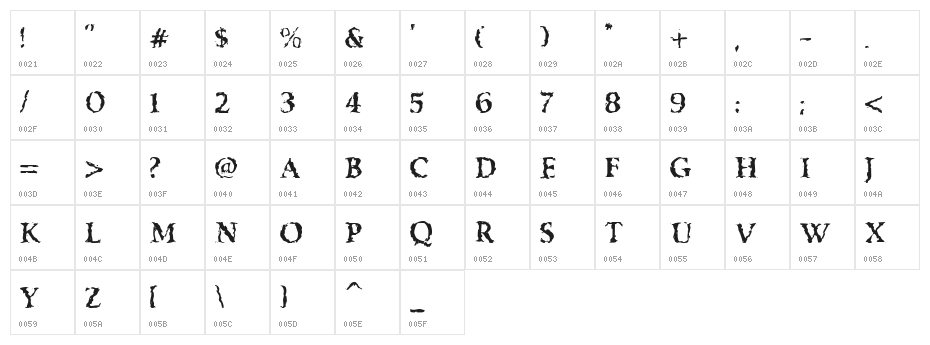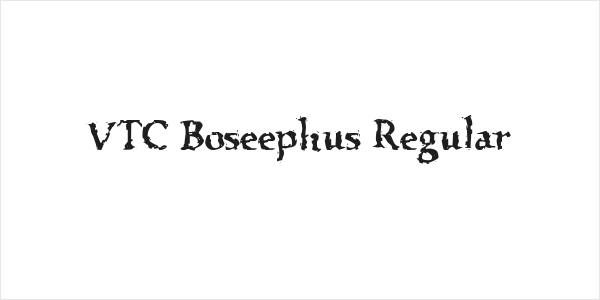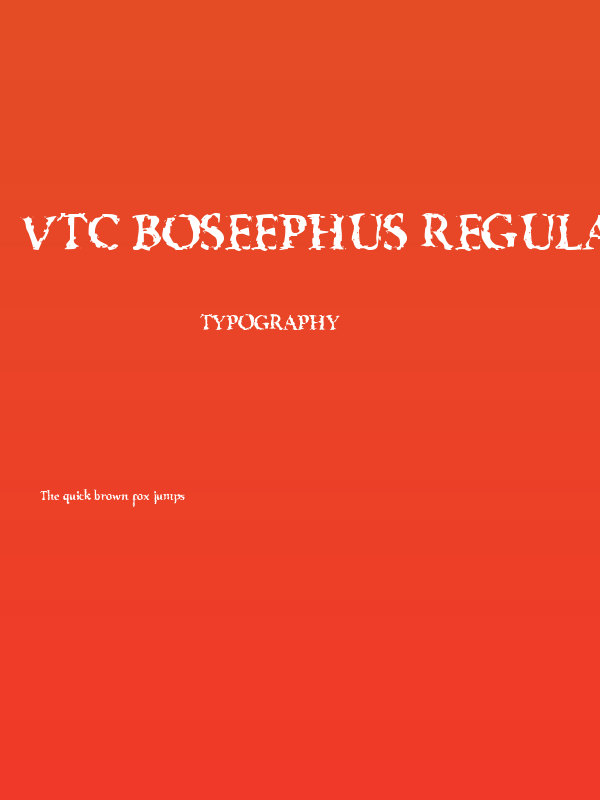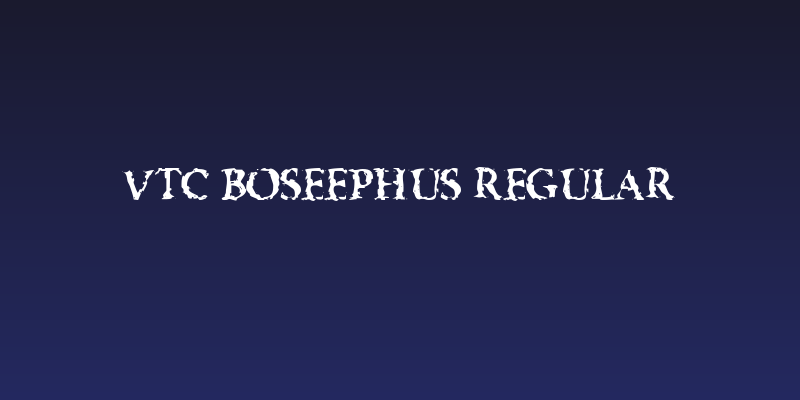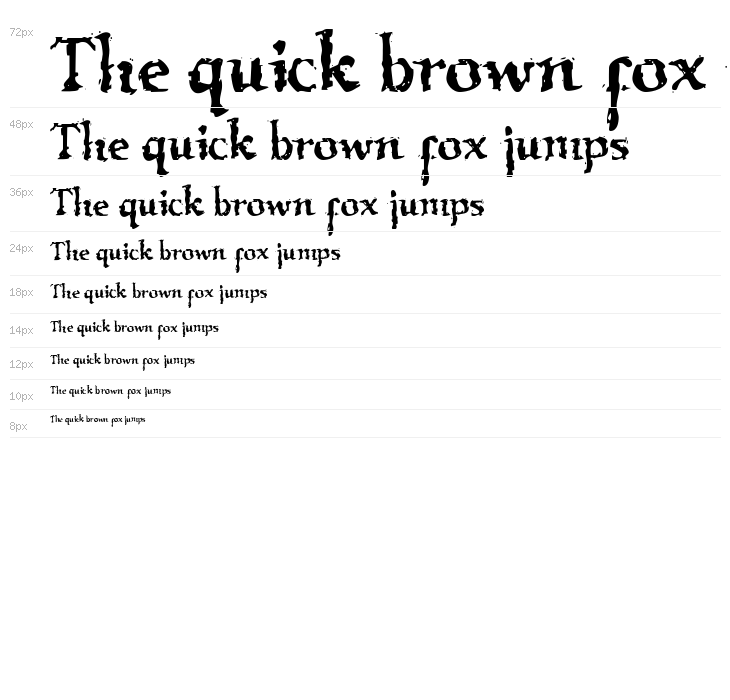
VTC Boseephus Regular Font
VTC Boseephus Regular Description
This font features a rugged and distressed appearance, reminiscent of worn-out or eroded surfaces. The characters have an irregular, jagged edge that gives them a unique, weathered look. The uppercase and lowercase letters maintain a consistent style, with varying thickness in the strokes that adds to the distressed effect. The numerals and special characters follow the same aesthetic, making the font cohesive across all elements. This style is particularly eye-catching and can evoke a sense of vintage or grunge, making it suitable for designs that aim to convey a raw, edgy feel.
Overall StyleVintage, Grunge
Proposed ProjectsIdeal for album covers, posters, branding for alternative or rock music events, and any project requiring a bold, edgy statement.